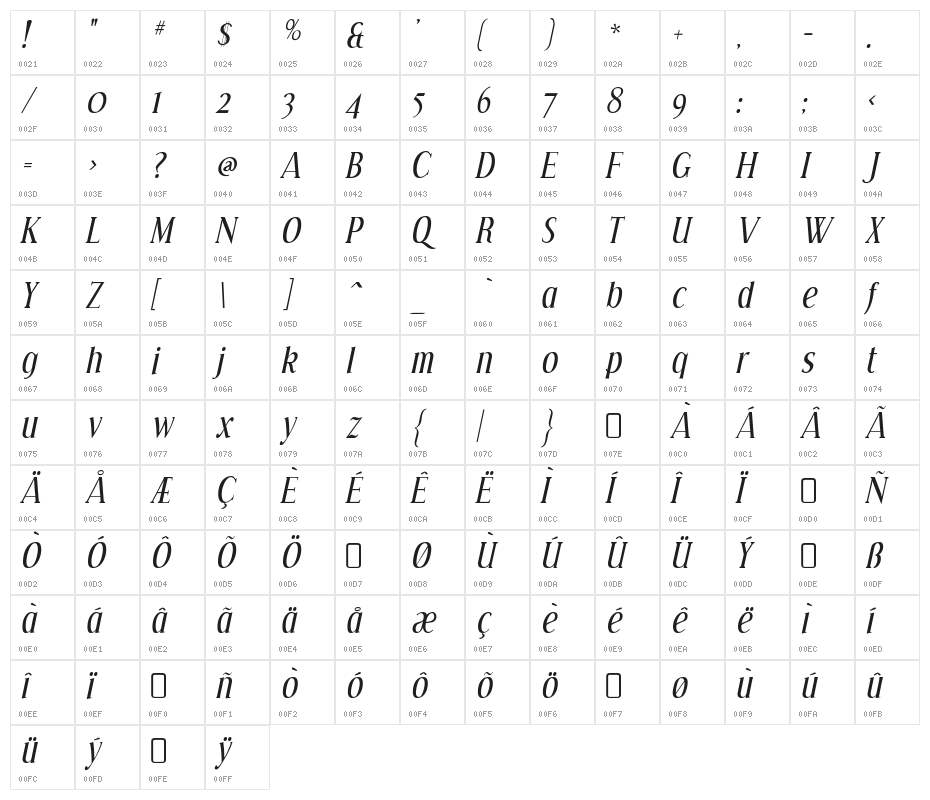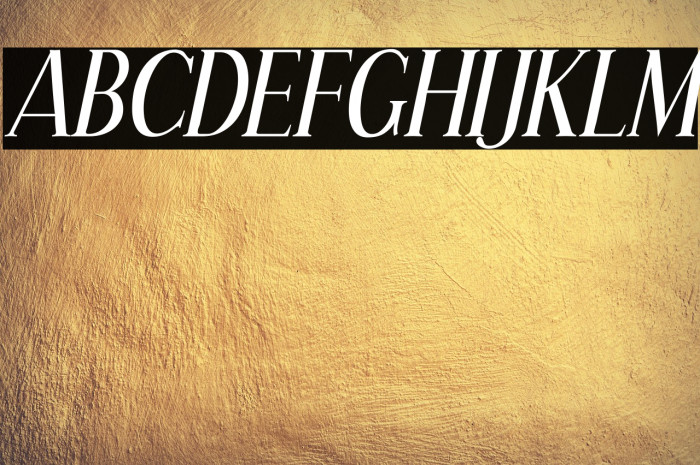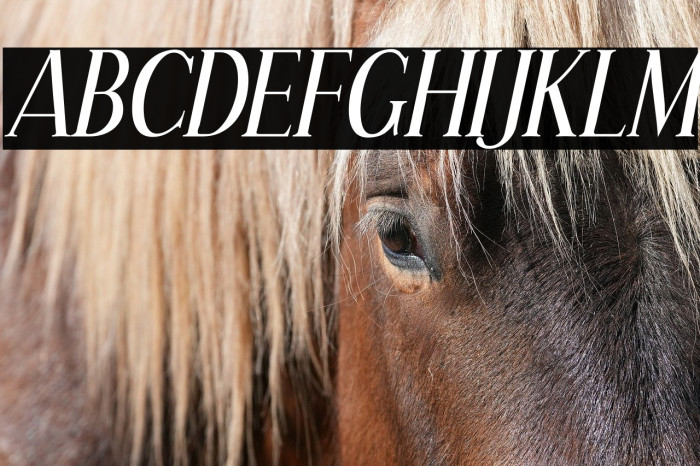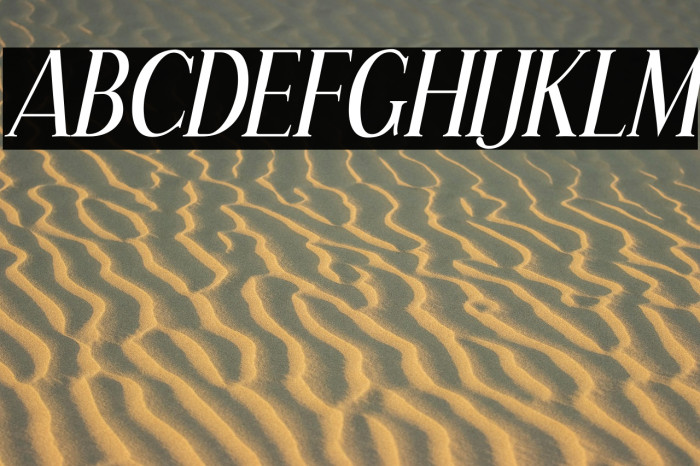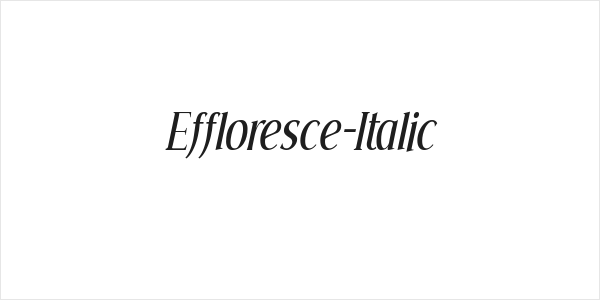
Effloresce-Italic Font
Effloresce-Italic Description
This elegant and sophisticated font features a distinct italic style with a graceful flow. The characters are slightly slanted, adding a dynamic and fluid appearance. The serifs are sharp and pronounced, giving it a classic yet modern feel. The uppercase letters are tall and commanding, while the lowercase letters maintain a consistent and harmonious look. The numerals are clear and easily readable, and the special characters are well-integrated, maintaining the overall aesthetic. The font's design is suitable for projects that require a touch of elegance and refinement.
| Proposed Projects | Ideal for wedding invitations, luxury branding, editorial design, and elegant packaging. |